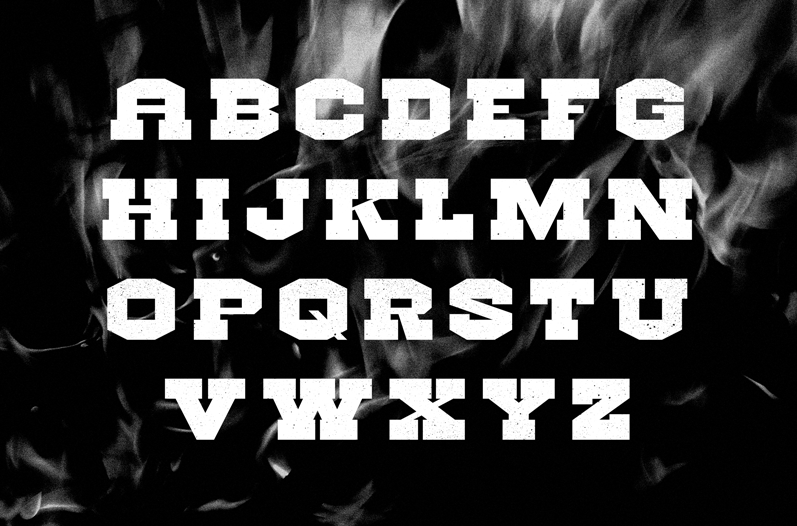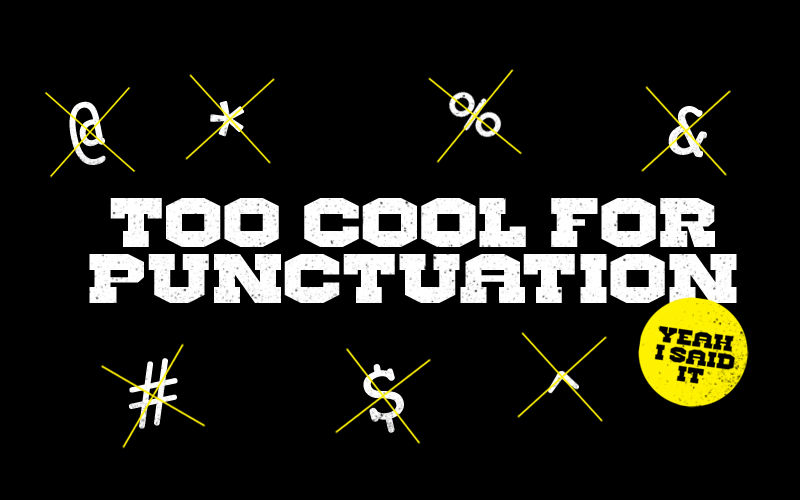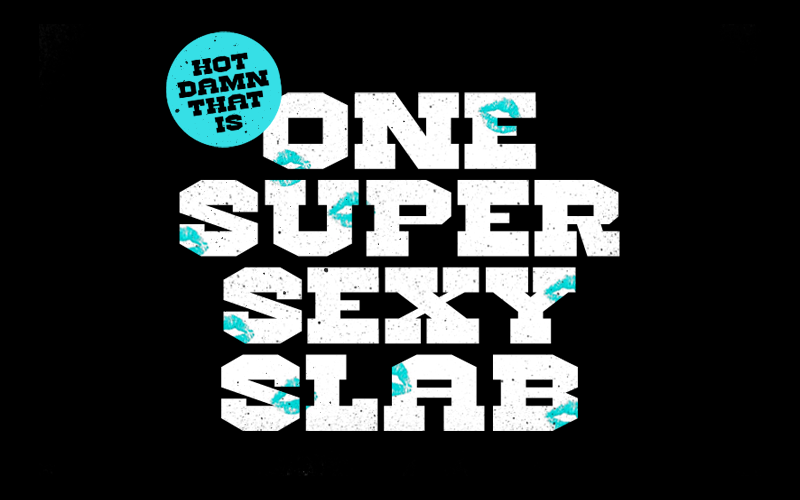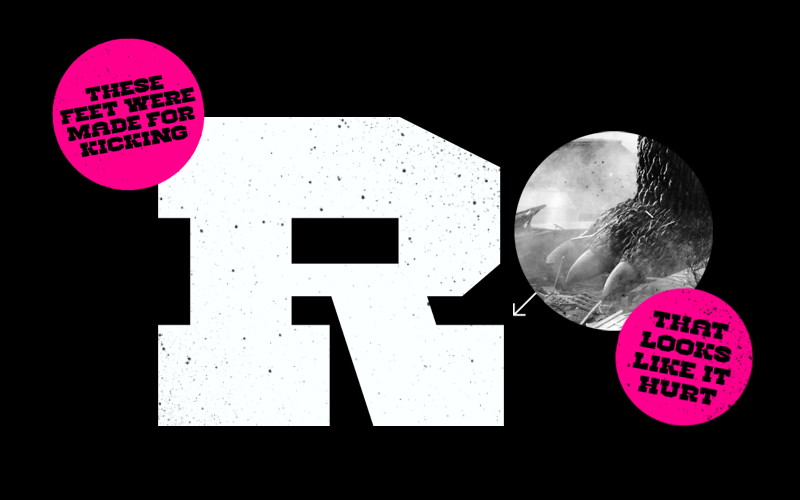
Hellforge
A working-class slab.
Inspired by the infernos of the coal mill, Hellforge is a molten-hot headline slab cast with factory-grade craftsmanship.